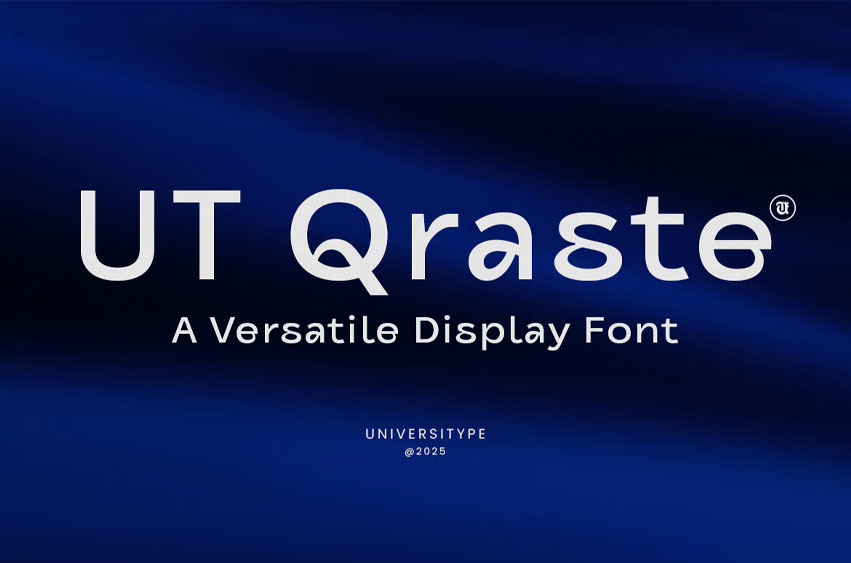
UT Qraste Font is a one-style display font that bends the rules just enough to stand out, without ever being loud. It blends smooth curves and geometric rigor into a clean, flexible typeface that can go playful or polished, depending on how you use it. Whether it’s a tech brand, editorial header, or a striking logo, Qraste brings just enough personality to keep things interesting without overshadowing the message.
- Open counters for better readability
- Distinct curves with a pinch of asymmetry for charm
- Clean, bold strokes that hold up across sizes
- Playful forms in characters like “a,” “g,” and “s”
- Full punctuation set, symbols, and multilingual support
Inspiration Behind the Design Qraste was born from a love for contrast—between logic and spontaneity, between geometric form and human expression. Its unique quirks are informed by the rhythm of handwriting, but the structure stays rooted in modular thinking. Think Bauhaus meets a good mood.
Usage Suggestions
- Branding and logos
- Editorial layouts or titles
- Poster designs
- Fashion, art, and music campaigns
- User interfaces and packaging
- Glyph Count: 390
- Features: Standard Ligatures, Punctuation & Symbols, Basic Math Symbols, Stylistic alternates, Multilingual support